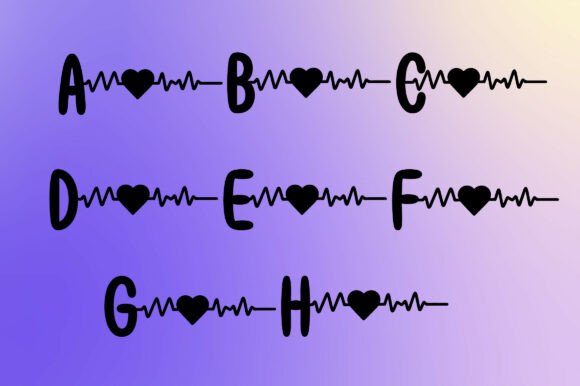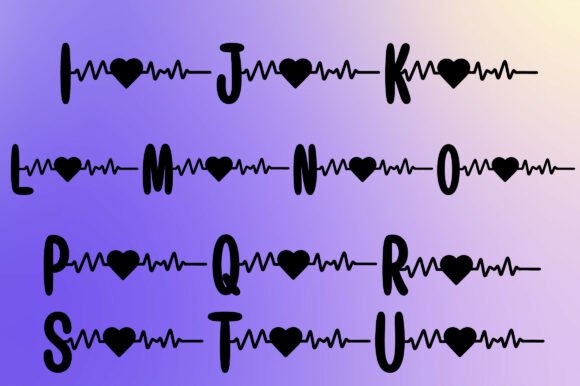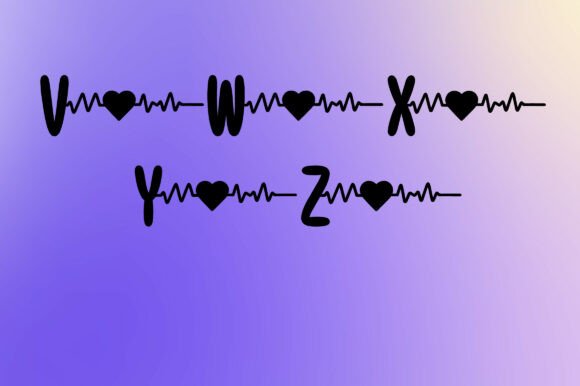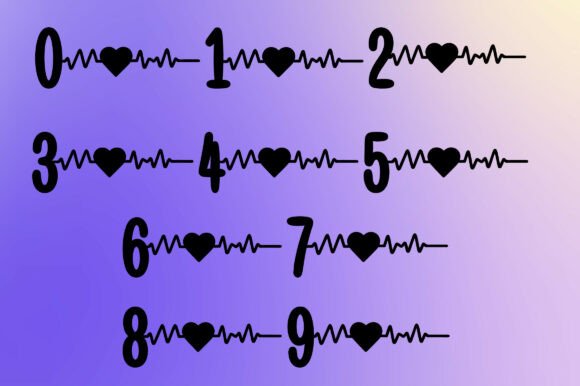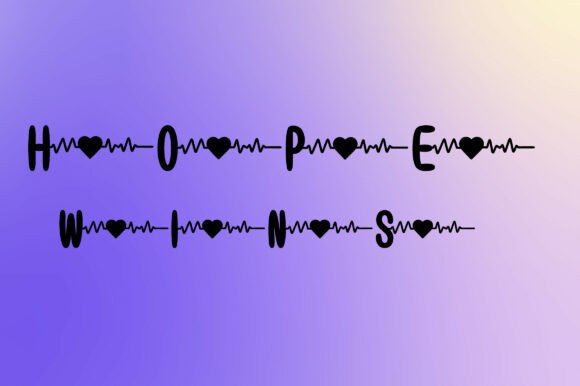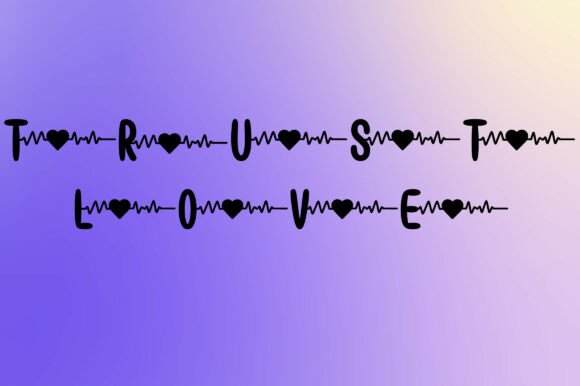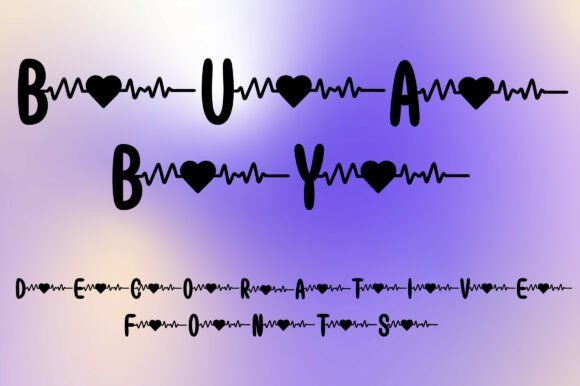
Adding Heart to Your Designs
You’ve got that moment – the spark of creativity hits, and you envision a design that captures the essence of your brand or project. Maybe it’s a bold logo, a vibrant poster, or an invitation that stands out from the crowd. Whatever the idea, you know you need a font that complements your vision and adds that special something. For designers seeking to inject energy and emotion into their work, the Buaby Font is an excellent choice.
This creative font, inspired by heartbeat lines and heart-themed designs, offers a unique decorative style that’s perfect for logos, branding, posters, invitations, and more. The Buaby Font’s bold and playful touch makes it an invaluable asset for designers looking to bring their projects to life with style, passion, and imagination.
Buaby Font Key Features
- Font Family: Buaby Font is a sans-serif font family designed to be highly legible and versatile.
- Font Size: Buaby Font supports a wide range of font sizes, from 8pt to 72pt, making it suitable for various applications, including body text, headings, and titles.
- Resolution: Optimized for high-resolution displays, Buaby Font looks crisp and clear at resolutions up to 300 DPI.
- Unique Characteristics: Buaby Font features a unique blend of modern and classic elements, with clean lines, rounded edges, and a subtle x-height, making it perfect for contemporary designs.
Buaby Font Review
As a designer, I had the chance to work with the Buaby Font, and here’s my honest review.
- The Buaby Font has a unique, playful feel that can add a touch of whimsy to any design project.
- The font is highly customizable, allowing designers to adjust the weight, spacing, and other parameters to suit their needs.
- The font includes a wide range of characters, including Latin, Greek, and Cyrillic scripts, making it suitable for international designs.
- The font is well-optimized for digital use, ensuring crisp and clear rendering on various screens.
- The Buaby Font may not be the best choice for formal or professional designs, as its playful nature may not be suitable for all audiences.
- The font may not be as versatile as some other fonts, and may not work well in certain design contexts, such as titles or headlines.
- The font’s customizability can also be a double-edged sword, as it may require more time and effort to achieve the desired look.
The Buaby Font is a fun and creative font that can add a touch of personality to designs. While it may not be the best choice for all projects, it’s definitely worth considering for designs that require a playful or whimsical feel. With its high level of customizability and well-optimized digital rendering, the Buaby Font is a solid choice for designers looking to add some flair to their projects.
Tips for Getting the Most Out of Buaby Font
To get the most out of the Buaby Font, use it in bold and italic styles to add emphasis and create visual interest. You can also pair it with other fonts to create a unique and eye-catching design.
The Buaby Font is commonly used in children’s book illustrations, party invitations, and social media graphics. It’s perfect for adding a playful and whimsical touch to your designs.